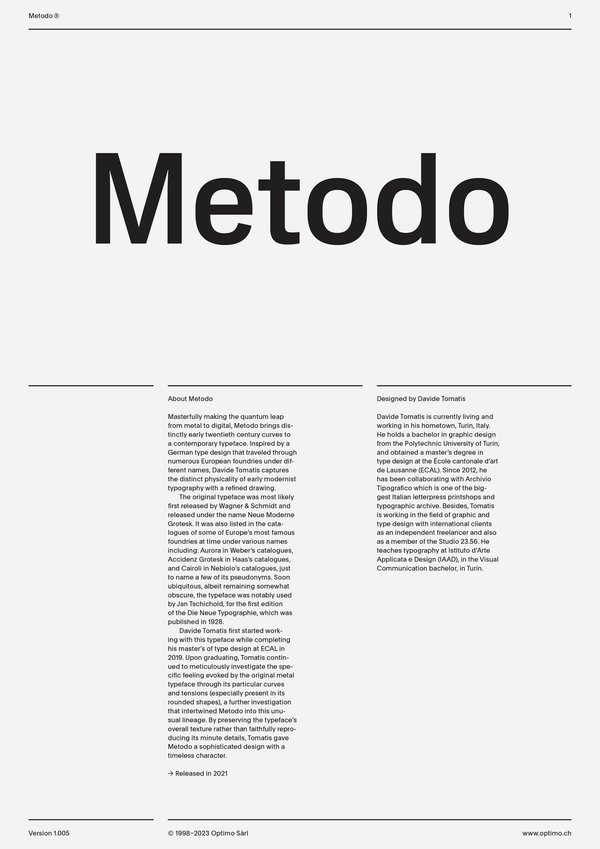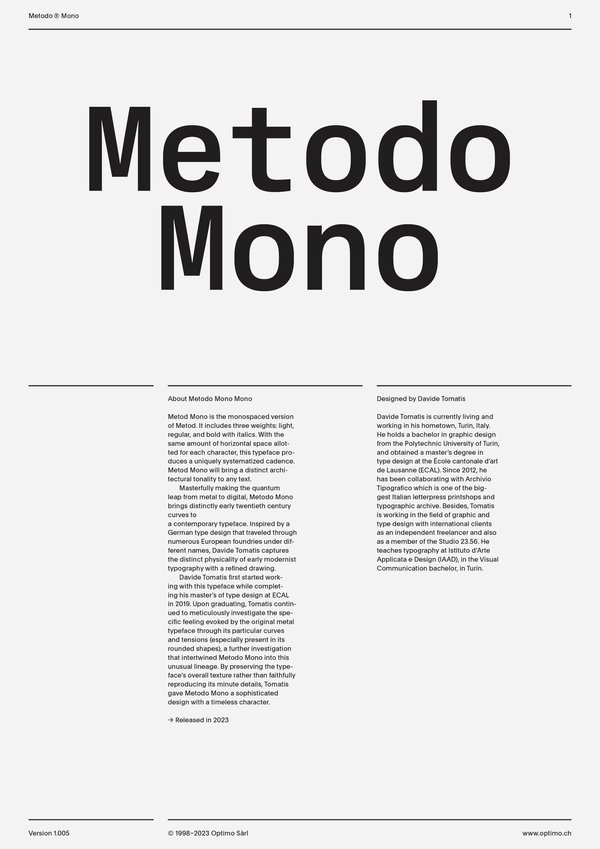
Metodo
Metodo Mono
Case Sensitive Forms
All Caps [cpsp]
Case Sensitive Forms [case]
This function formats the text in uppercase and adjusts spacing between all capital letters. It also applies the ‘Case Sensitive Forms’ feature which replaces certain characters with alternates that are better suited for all capital text, especially related to punctuation.
Contextual Alternates
Contextual Alternates [calt]
This feature adapts the position of a glyph after its surrounding context. For instance, a dash placed between two uppercase letters or numbers will be replaced by an uppercase version of the dash, slightly higher. This feature is usually active by default in Adobe applications.
Alternate r
Stylistics Set [ss01]
This feature replaces glyph(s) with stylistic alternate(s).
Alternate R
Stylistics Set [ss02]
This feature replaces glyph(s) with stylistic alternate(s).
Tabular Lining Figures
Tabular Lining Figures [tnum–lnum]
Based on the proportions of the capitals, lining figures have an invariable height. With the combination of the tabular spacing format, the width of each numeral is uniformized. This feature is useful when numerals need to all lined up. It facilitates the reading of numbers set within columns or tables. As some applications don’t have access to this feature, proportional figures are set as the default choice.
Proportional Oldstyle Figures
Proportional Oldstyle Figures [pnum–onum]
Based on the design of the lowercase, oldstyle figures have varying ascenders and descenders. Like most of the letters, each number has an appropriate width based on its shape. The combination of oldstyle figures with proportional setting generate numerals perfectly adapted for text.
Tabular Oldstyle Figures
Tabular Oldstyle Figures [tnum–onum]
Based on the design of the lowercase, oldstyle figures have varying ascenders and descenders. With the combination of the tabular spacing format, the width of each numeral is uniformized. This feature is useful when numerals need to all lined up. It facilitates the reading of numbers set within columns or tables.
Fractions
With this feature, any numbers separated by a slash will automatically turn into a fraction. To fit in fraction configuration, numerals have been designed smaller and their weights have been adjusted to suit the typeface.
Lowercase math symbols
Stylistic Set 6 [ss06]
This feature activates alternate lowercase positioning of mathematical symbols.
This feature replaces any letter following a numeral with its matching superior letters. French language uses the ordinal indicators such as ‘er’ for 1er premier, while Spanish, Portuguese and Italian require the feminine and masculine ordinals ‘a,’ ‘o’ for 1º, 1ª. Ordinals are designed to match the weight of the typeface.
Slashed Zero
Slashed Zero [zero]
Originally created to avoid the confusion between the ‘0’ and the ‘O’, this feature substitutes all zeros in a selected text by a slashed form of the zero.
Proportional Oldstyle Figures [onum]
Tabular figures are all of equal width. They are only needed when the figures must all line up from one line to the next, as in a table. Proportional figures have varying widths, just like most letters; each number has a width appropriate to its design. Lining figures are all the same height, usually similar to that of capital letters. They are needed for use with all-capital settings.
Multiply sign
Stylistic Set 20 [ss20]
This feature substitutes the letter “x” into the multiplication sign.
Numerators [numr]
This feature substitutes glyphs with their matching smaller alternates. The numerators are the same glyphs that are used to create fractions, their vertical position remains within the capital letters height. These glyphs are reduced in size and designed slightly heavier to keep them consistent with the rest of the font.
Davide Tomatis first started working with this typeface while completing his master’s of type design at École cantonale d’art de Lausanne in 2019. Upon graduating, Tomatis continued to meticulously investigate the specific feeling evoked by the original metal typeface through its particular curves and tensions (especially present in its rounded shapes). By preserving the typeface’s overall texture rather than faithfully reproducing its minute details, Tomatis gave Metodo a sophisticated design with a timeless character.